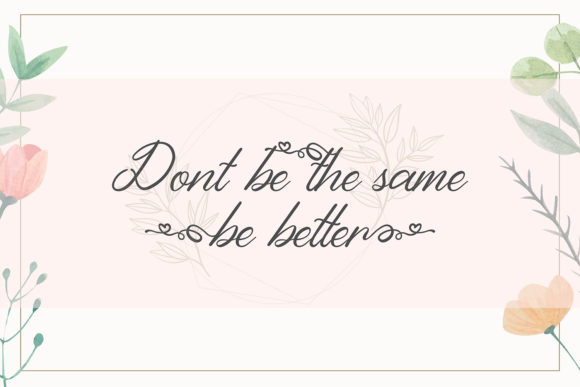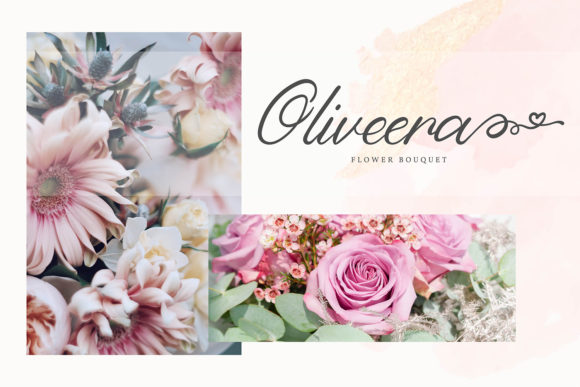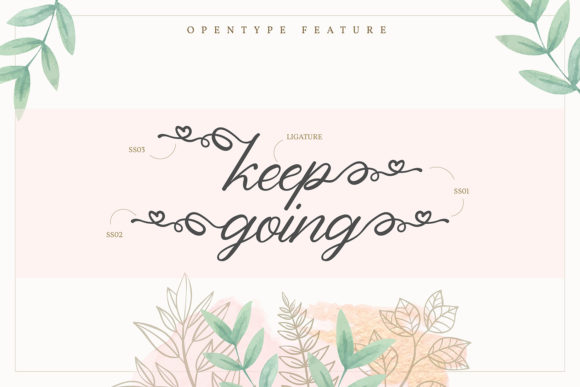
Introduction to Loveliya Font
Loveliya is an elegant script font with a contemporary atmosphere and impeccable form, inspired by timeless classic calligraphy.
Not too thin and not too thick, balanced and varied, Loveliya was designed to enhance the beauty of your projects This font is PUA encoded which means you can access all of the glyphs and swashes with ease.
Key Features of Loveliya Font